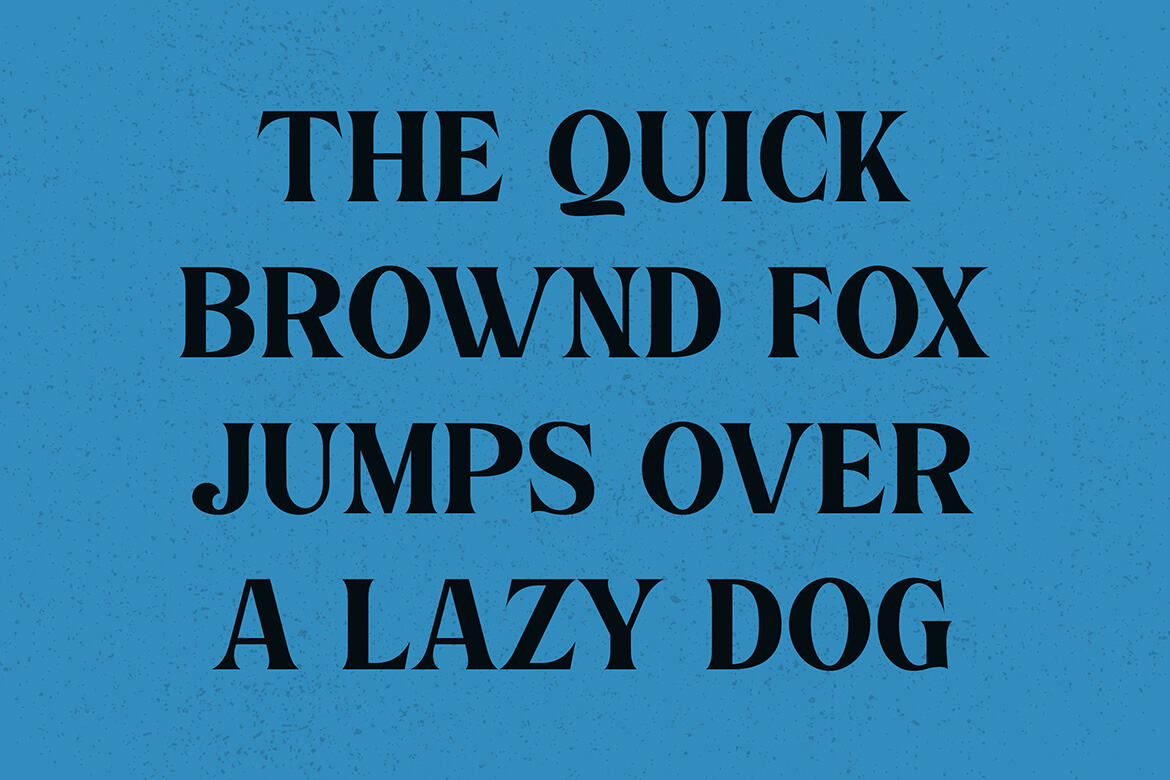
Bogimber - FREE Font
Bogimber Regular
Trendy, elegant, artistic, luxury & modern style serif font for your fancy projects. Elegant, fashion and editorial style on Bogimber font will be great for any branding project. You can find also full premium Bogimber font on deeezy.com
• great for modern branding projects